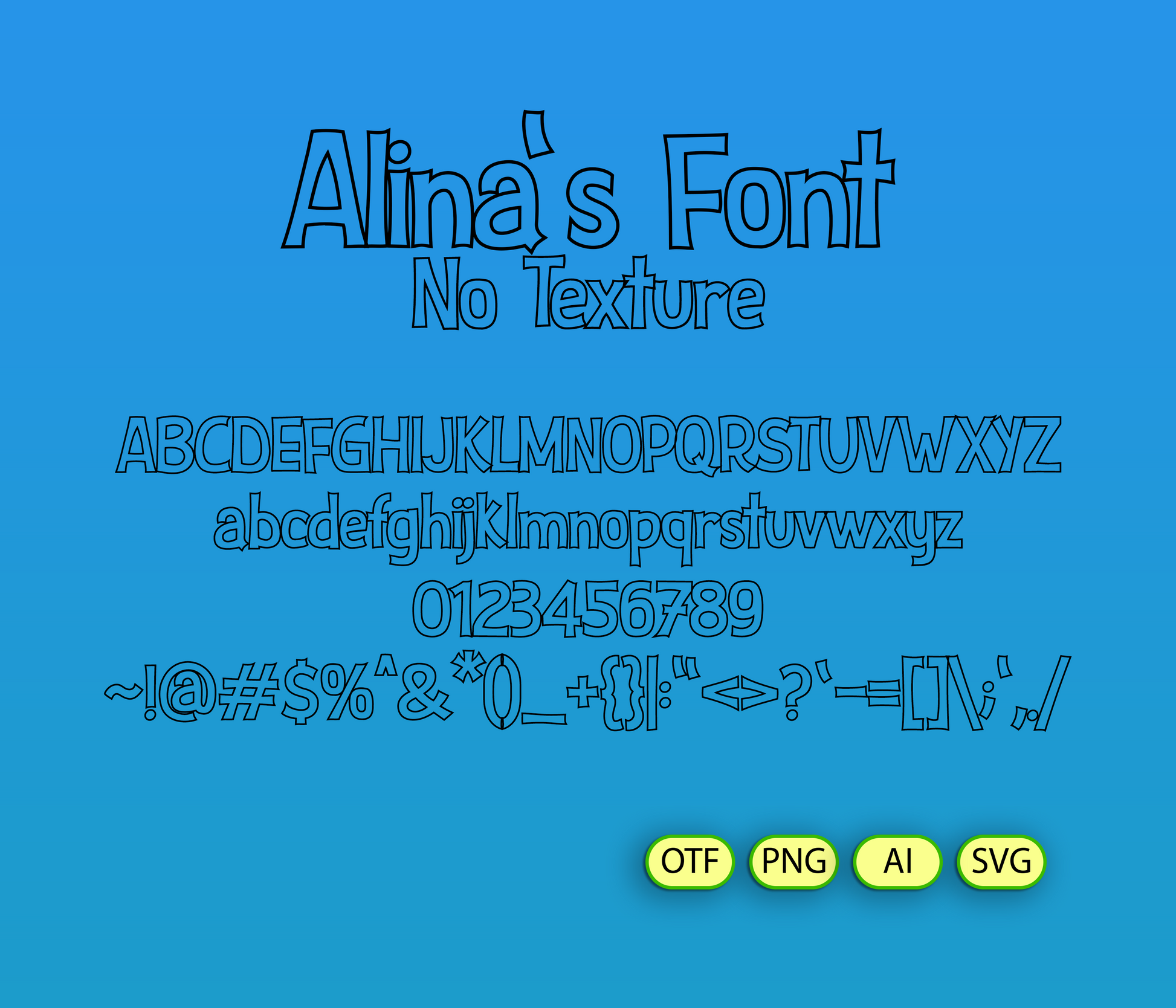
Beagle's Tale Comic Font
Step into the whimsical world of a philosophical pup with our Beagle's Tale font, capturing the charm of a beloved canine dreamer and his imaginative adventures. This specially crafted typeface brings to life the playful spirit of classic comic strips featuring everyone's favorite doghouse novelist, perfect for designers, content creators, and fans looking to add a touch of storybook magic to their projects.
Our Beagle's Tale font features friendly, bouncy characters that reflect the joy and whimsy of a creative pup's daydreams. Ideal for:
1. Children's Content: Create charming storybooks, educational materials, and playful resources that capture the spirit of doghouse adventures
2. Holiday Magic: Design festive cards, decorations, and seasonal greetings with that special touch of aviation-loving beagle charm
3. Fan Merchandise: Develop delightful T-shirts, mugs, and accessories featuring the dreamy style of a literary hound
4. Digital Media: Transform your blogs, social media posts, and websites with headers and graphics that celebrate imagination
5. Creative Projects: Perfect for scrapbooking, greeting cards, and DIY crafts that need that special touch of doghouse wisdom
Looking for an online font generator to capture that daydreaming beagle magic? Oh good grief! No generator can match the authentic charm of our font, professionally crafted to bring that perfect blend of imagination and whimsy to your creations.
Our font celebrates the spirit of creative daydreaming and doghouse wisdom that made this literary pup so special. Whether you're creating materials for children's events, designing playful merchandise, or adding charm to personal projects, this font delivers the perfect mix of adventure and heart.